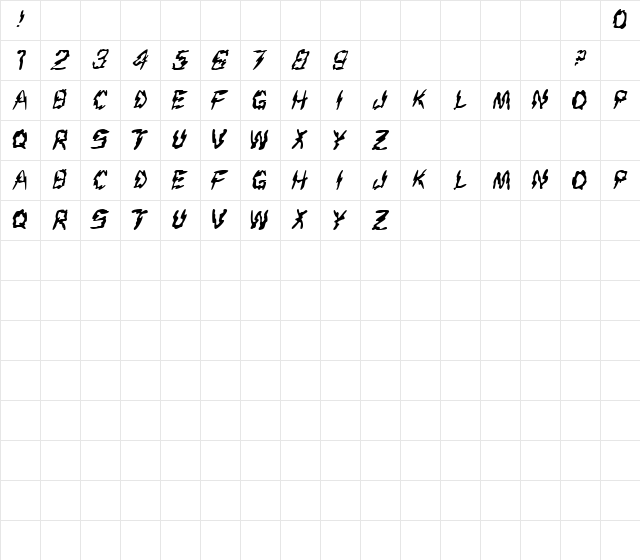
Creep LT Italic Free Font
Creep LT Italic
Design Context for Creep LT
Creep LT carries an unsettling edge - its distorted letterforms are built to unsettle, perfectly suited to horror, Halloween, and dark creative work. The slanted form adds forward momentum and visual energy.